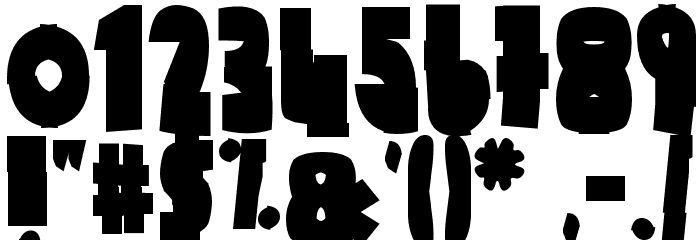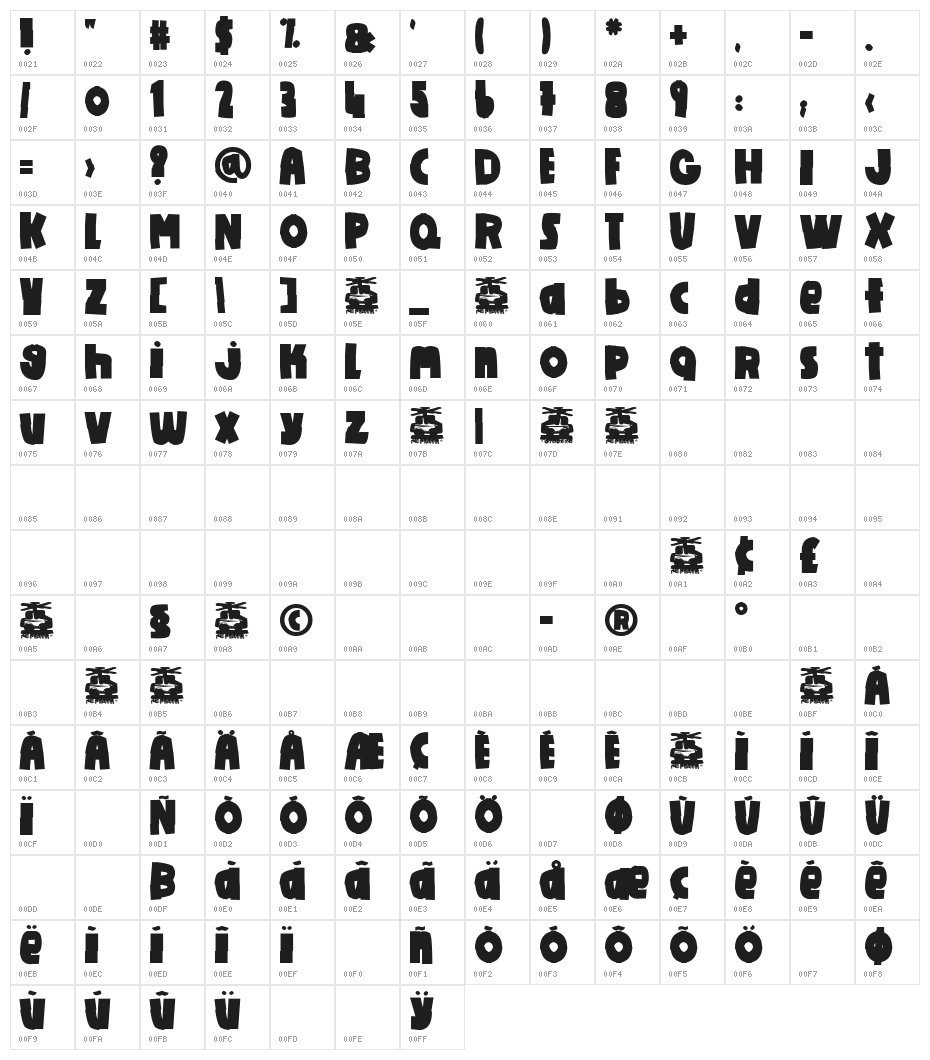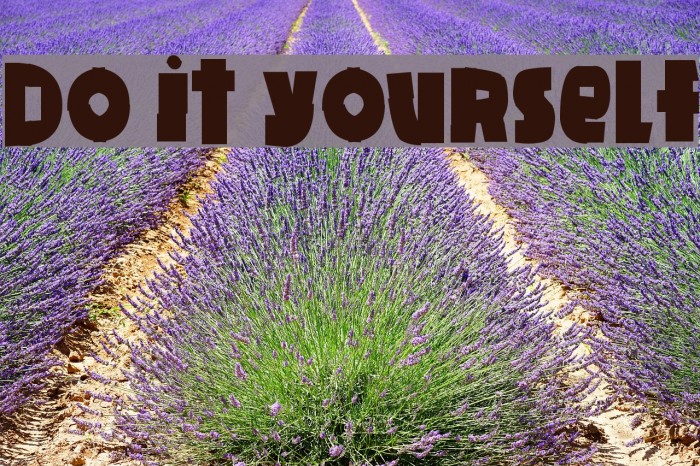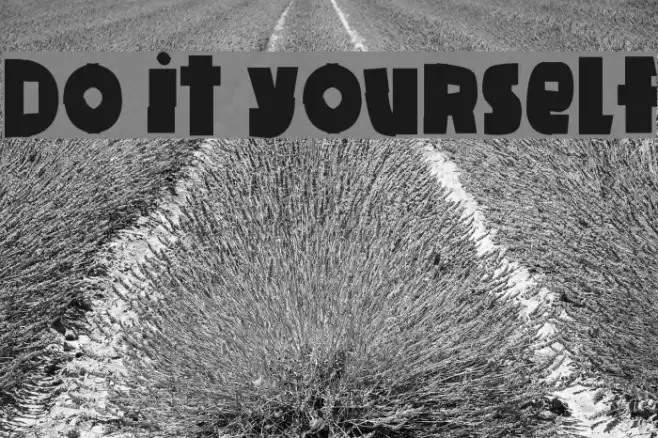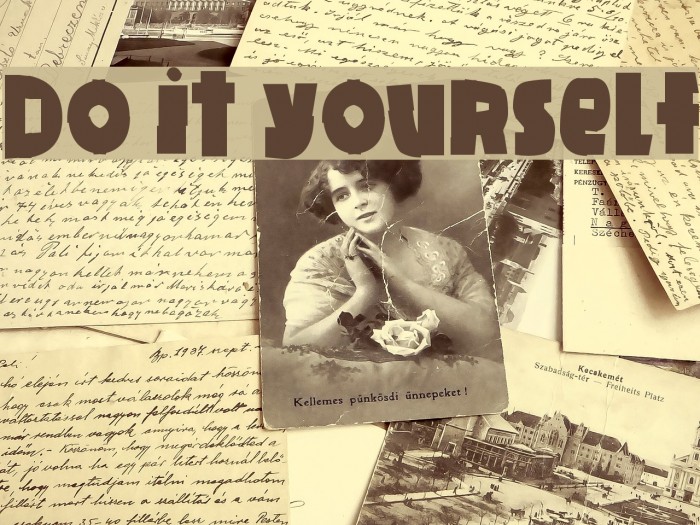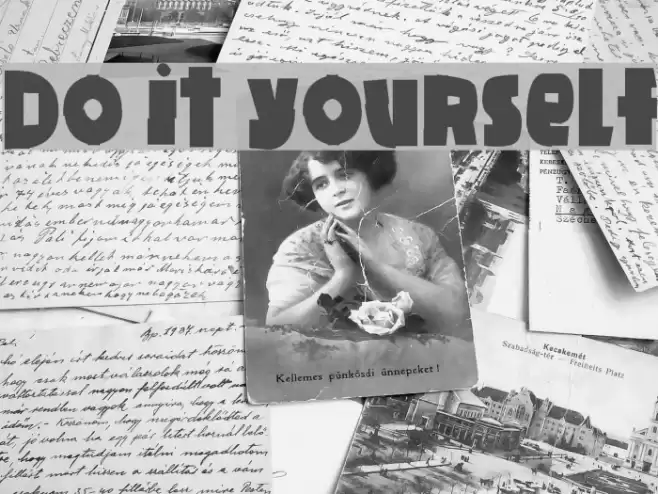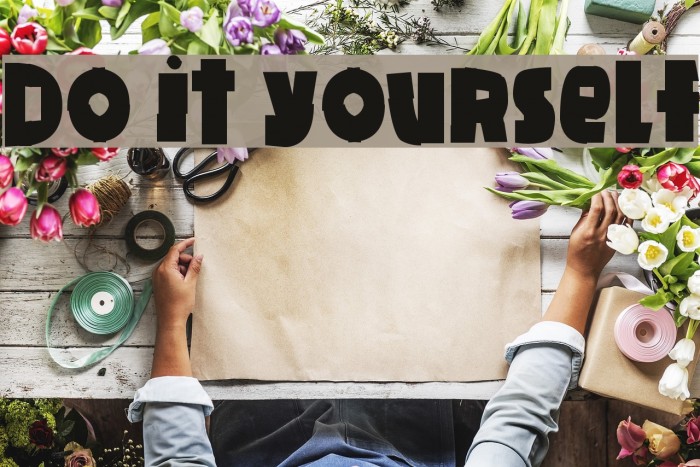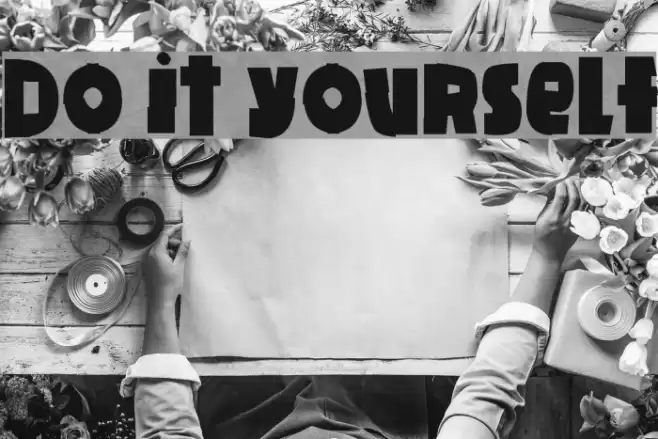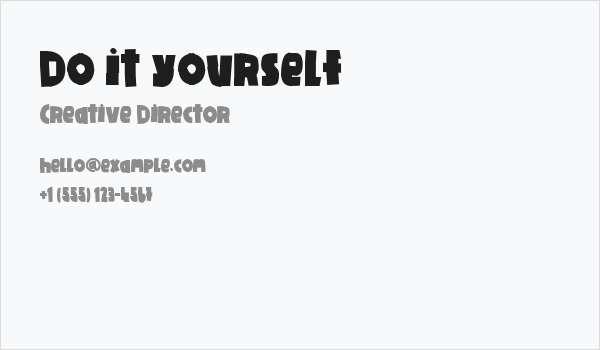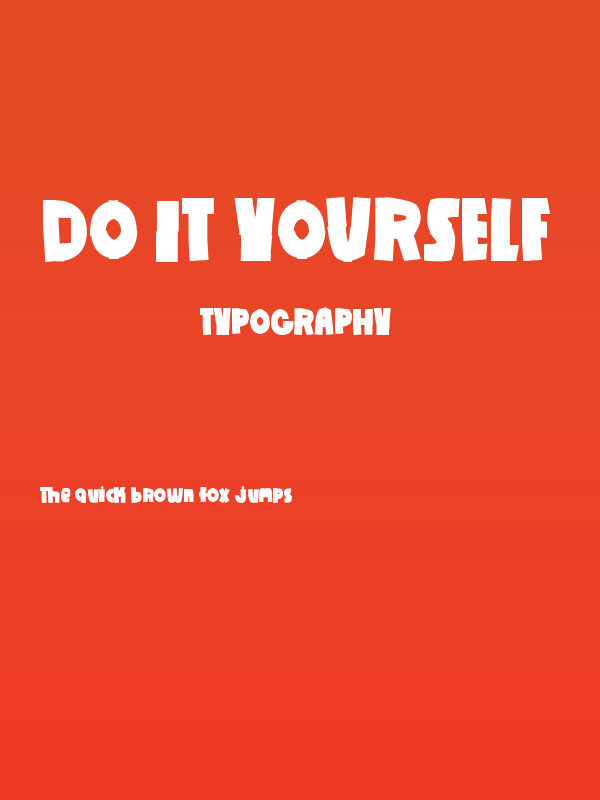
Do it yourself Font
Do it yourself Description
This font features a bold and playful style with exaggerated, chunky letterforms that convey a sense of fun and creativity. The characters are heavily weighted, with a consistent thickness throughout, giving them a strong presence. The overall design is quirky and informal, making it ideal for projects that require a touch of whimsy. The uppercase and lowercase letters maintain a uniform appearance, while the numerals and special characters are equally bold and expressive. This font's unique style is perfect for grabbing attention and adding a lively element to any design.
| Proposed Projects | Ideal for children's books, playful branding, posters, and creative projects. |